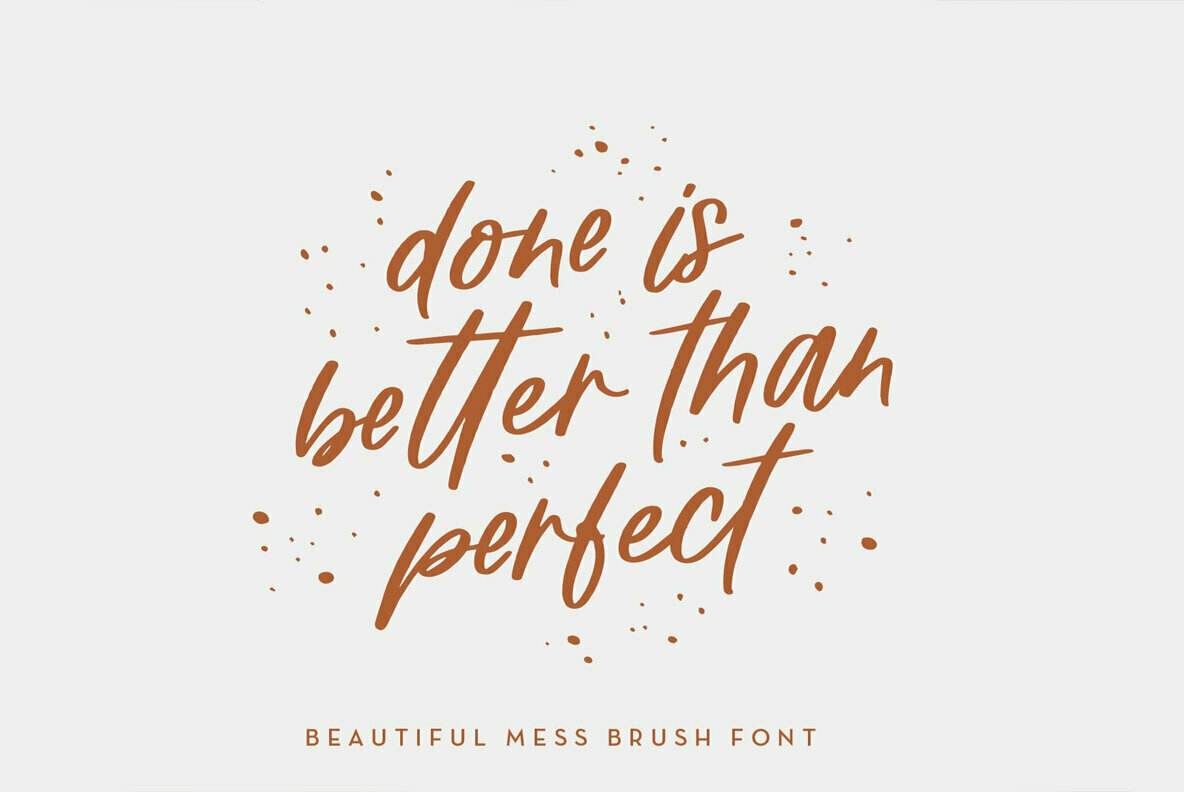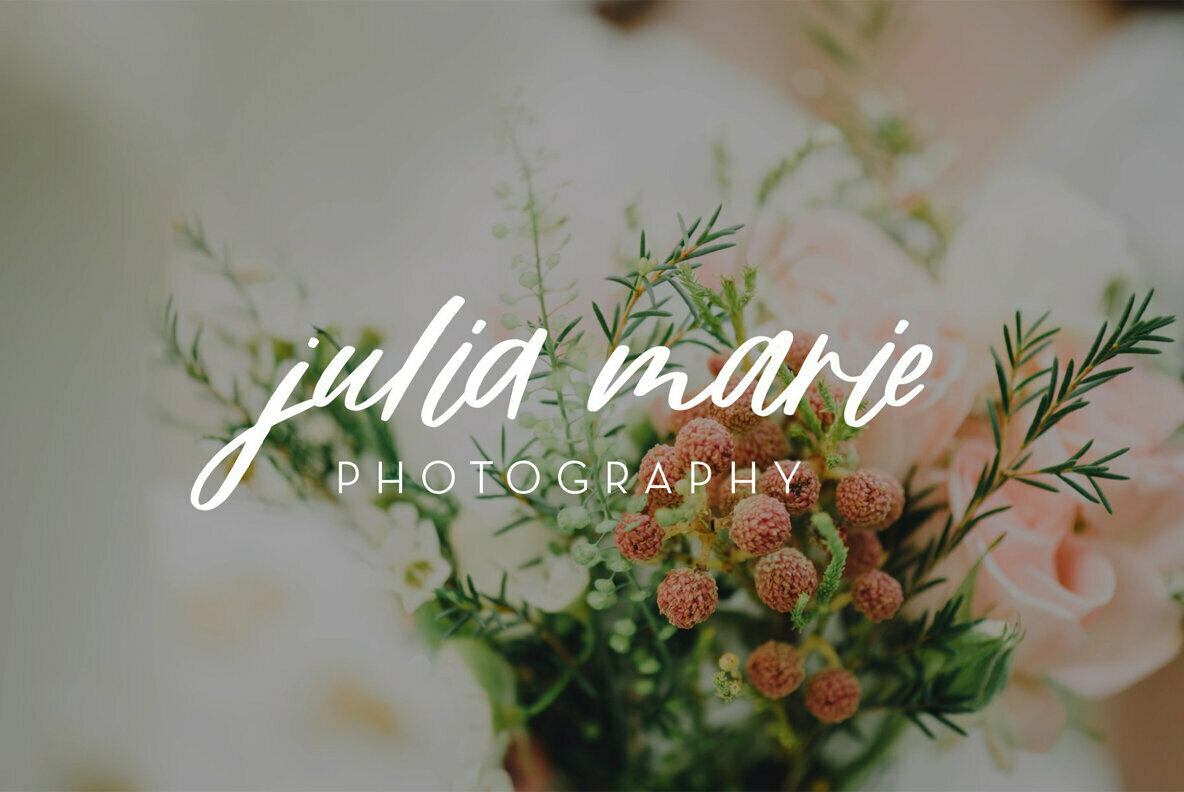
Beautiful Mess Font
Beautiful Mess
Beautiful Mess is a casual, hand-lettered script. It has a friendly and messy feel that works great for branding, social media, and marketing! Beautiful Mess is inspired by brush lettering - incorporating alternatives and swashes that add a hand-drawn feel.